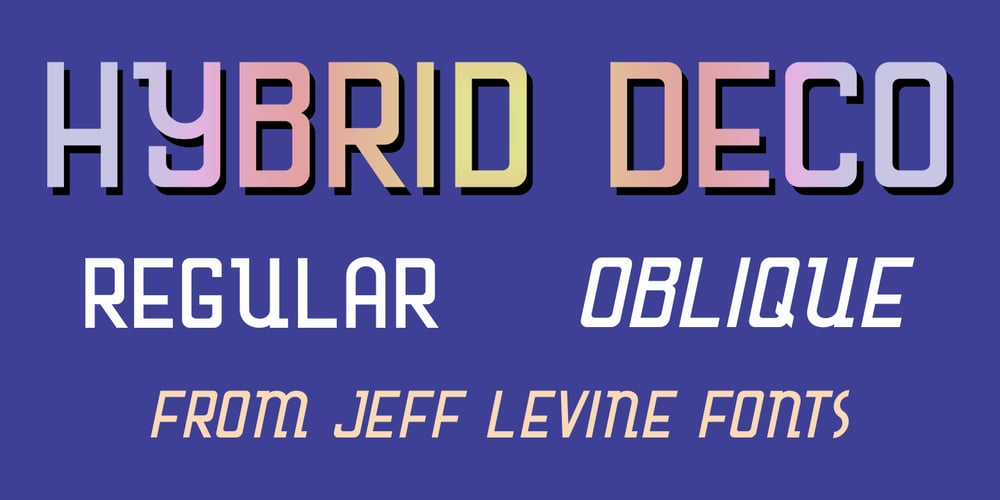
Hybrid Deco JNL Font Family was designed by Jeff Levine and published by Jeff Levine. Hybrid Deco JNL contains 2 styles and family package options. Squared letters with rounded corners – Deco stylized letter forms – some characters with ‘hook’ semi-serifs – such is the mixed styles that comprise the hand lettered title “United We Stand” on a 1940s-era piece of sheet music. This unusual conglomeration of character shapes inspired the aptly named Hybrid Deco JNL, which is available in both regular and oblique versions.